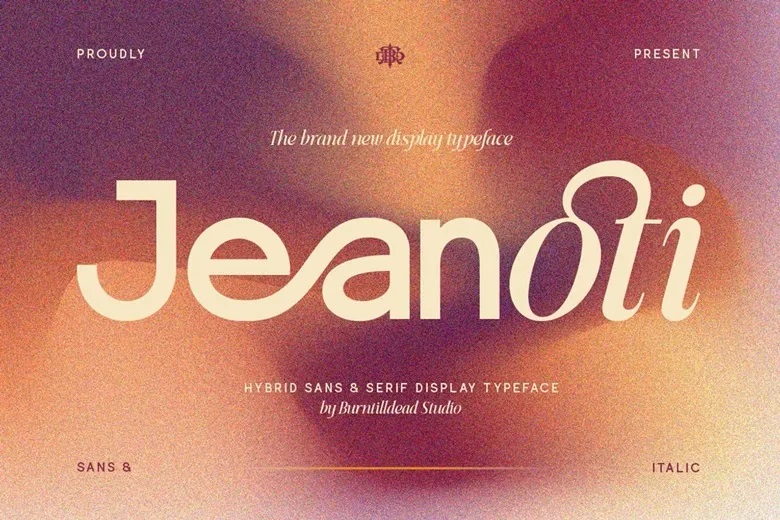
Jeanoti Font
Jeanoti is a bold new display sans-serif font that stands out by combining a clean sans-serif look with elegant serif details in one font family. It adds a fresh, modern-vintage feel to any design project.
Jeanoti offers two styles: a Sans version with crisp, geometric letters for bold statements, and an Italic version with smooth, flowing curves for a romantic and sophisticated touch. You can easily combine structure and elegance within the same family.
Jeanoti Sans Serif Font